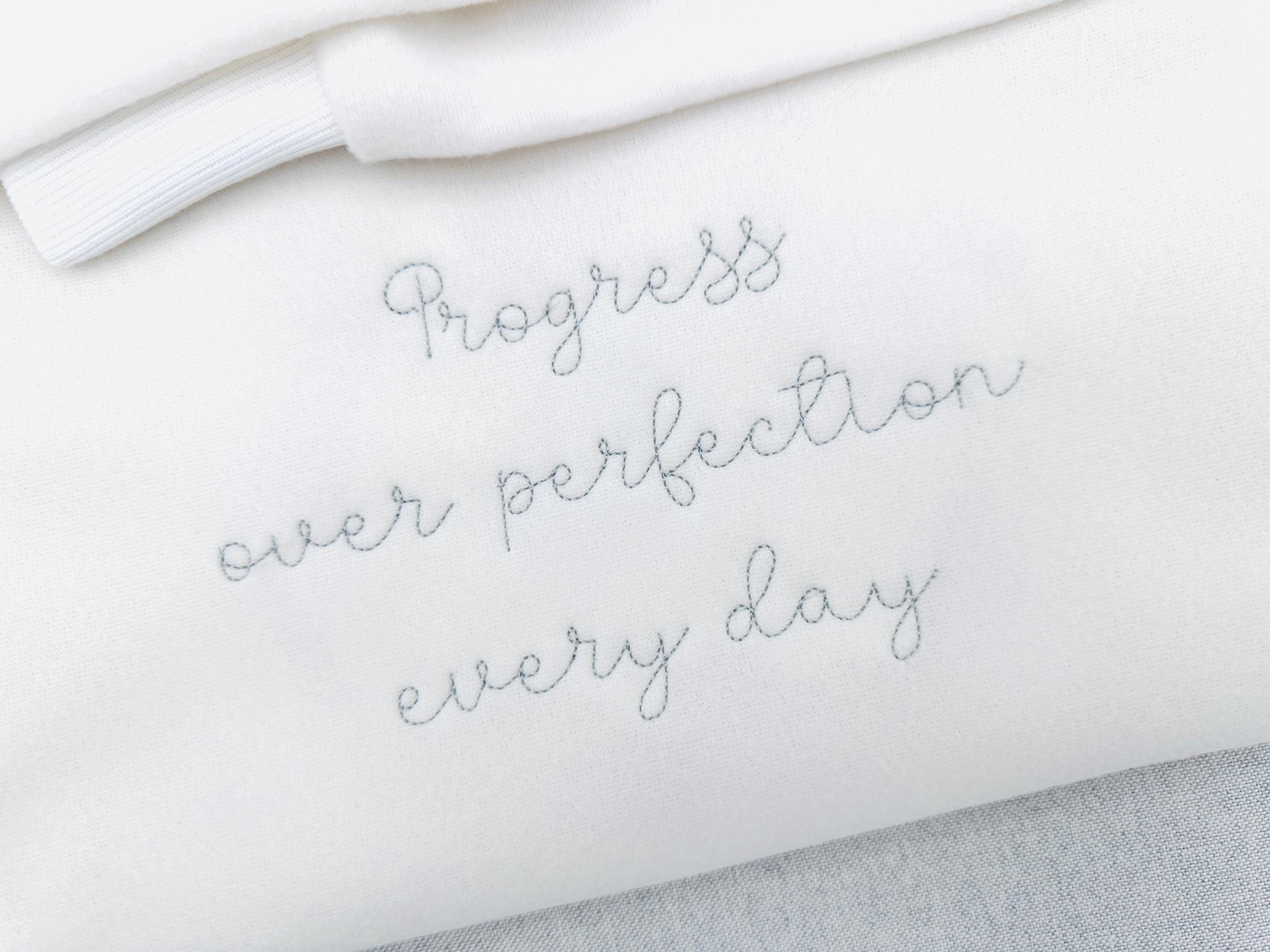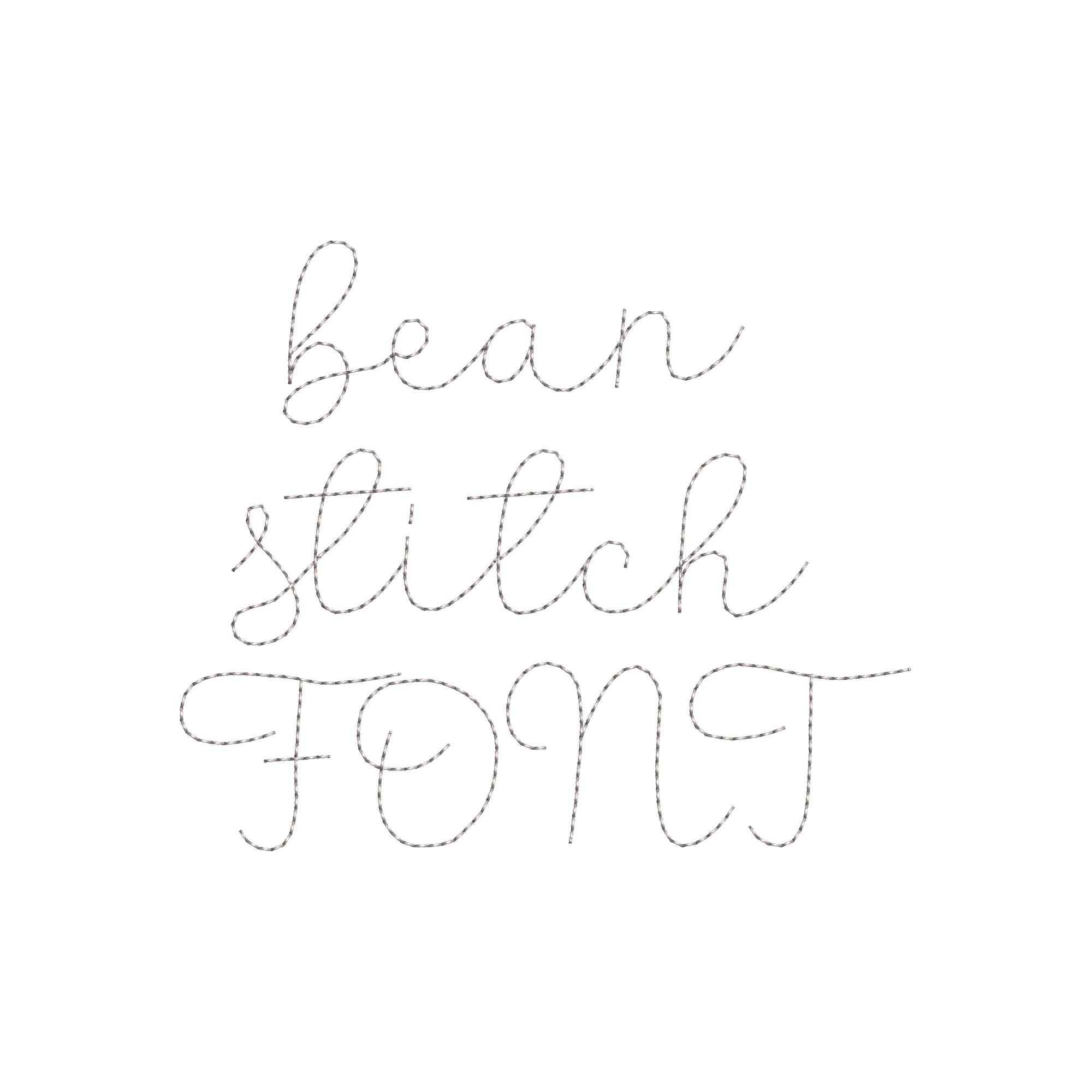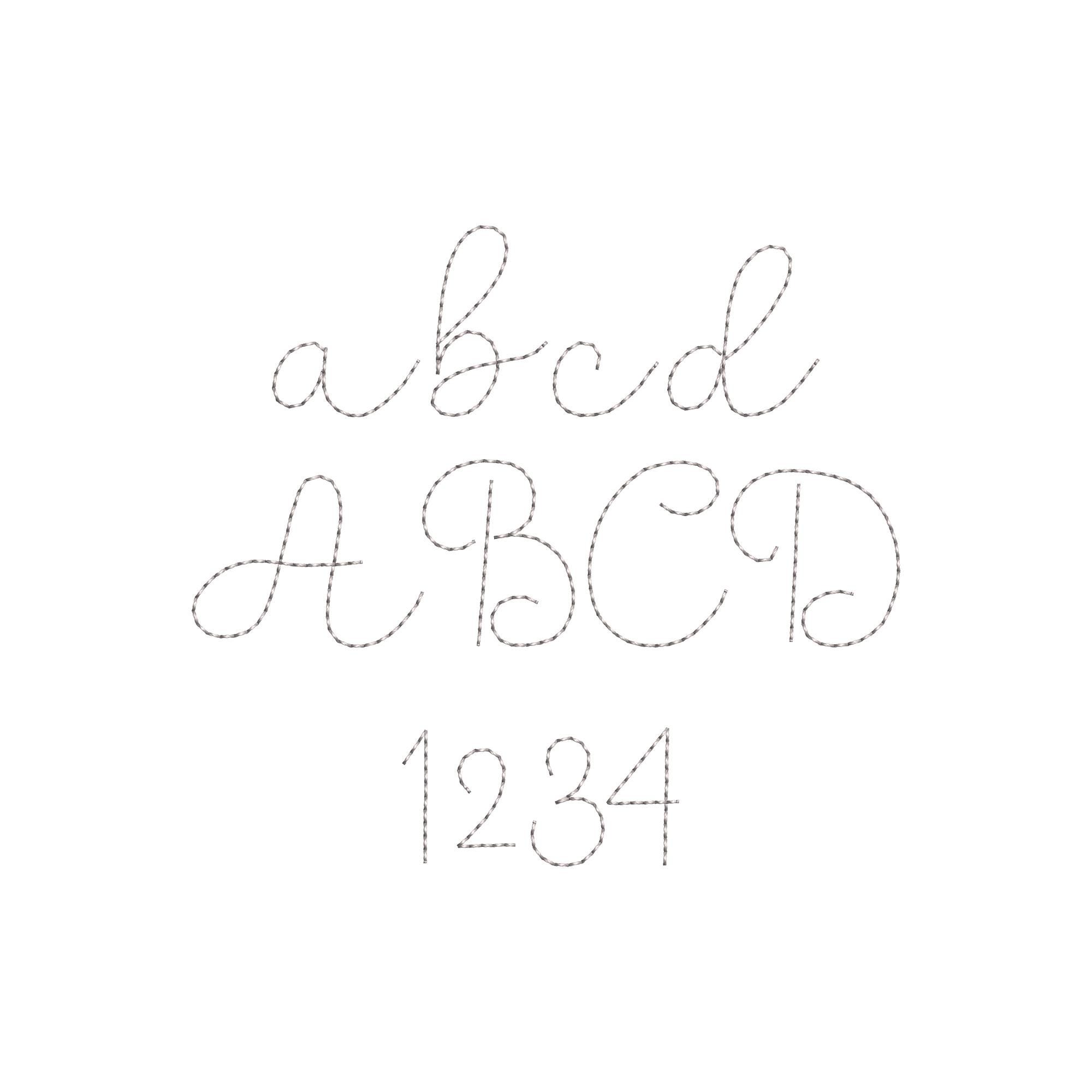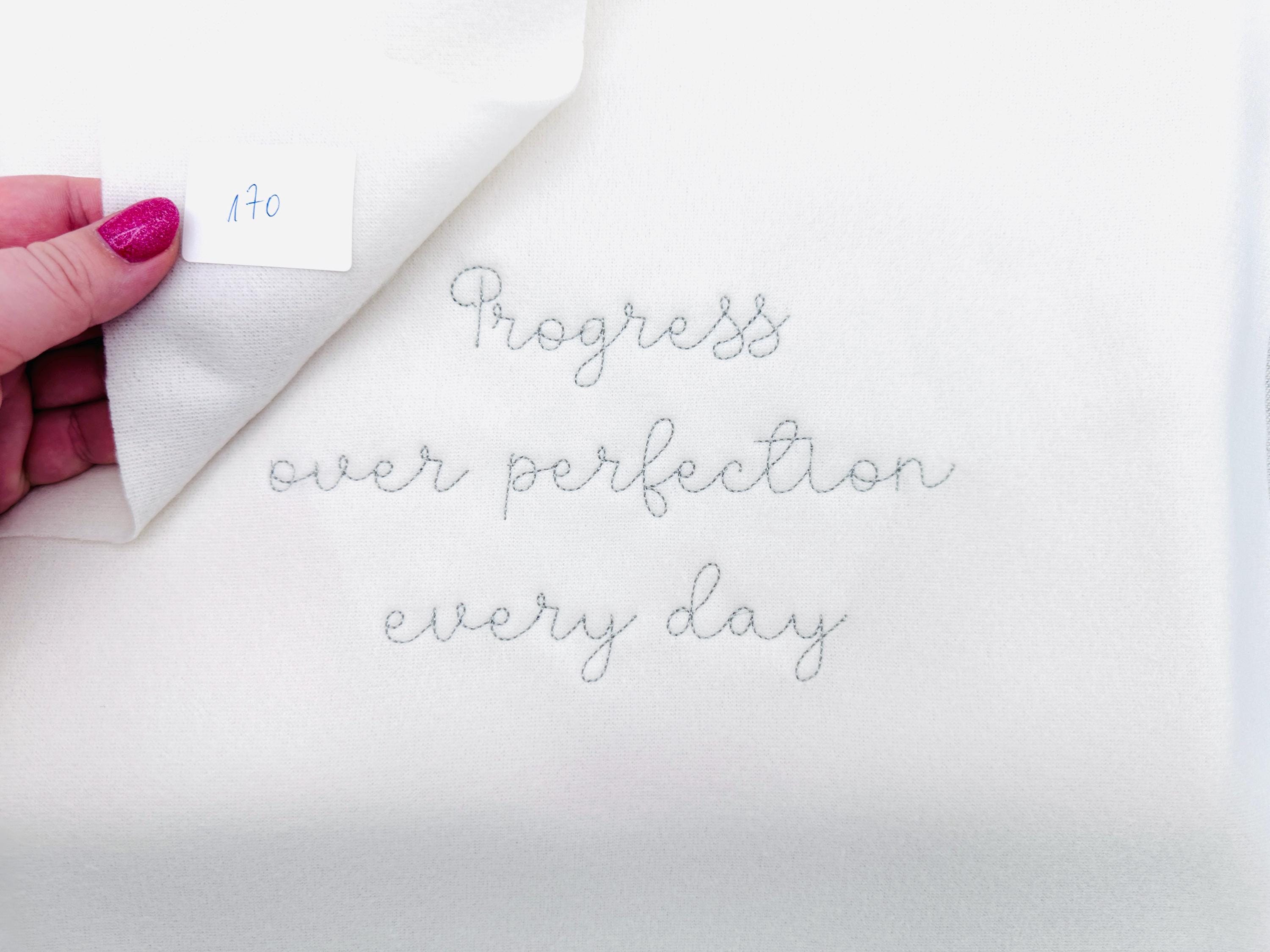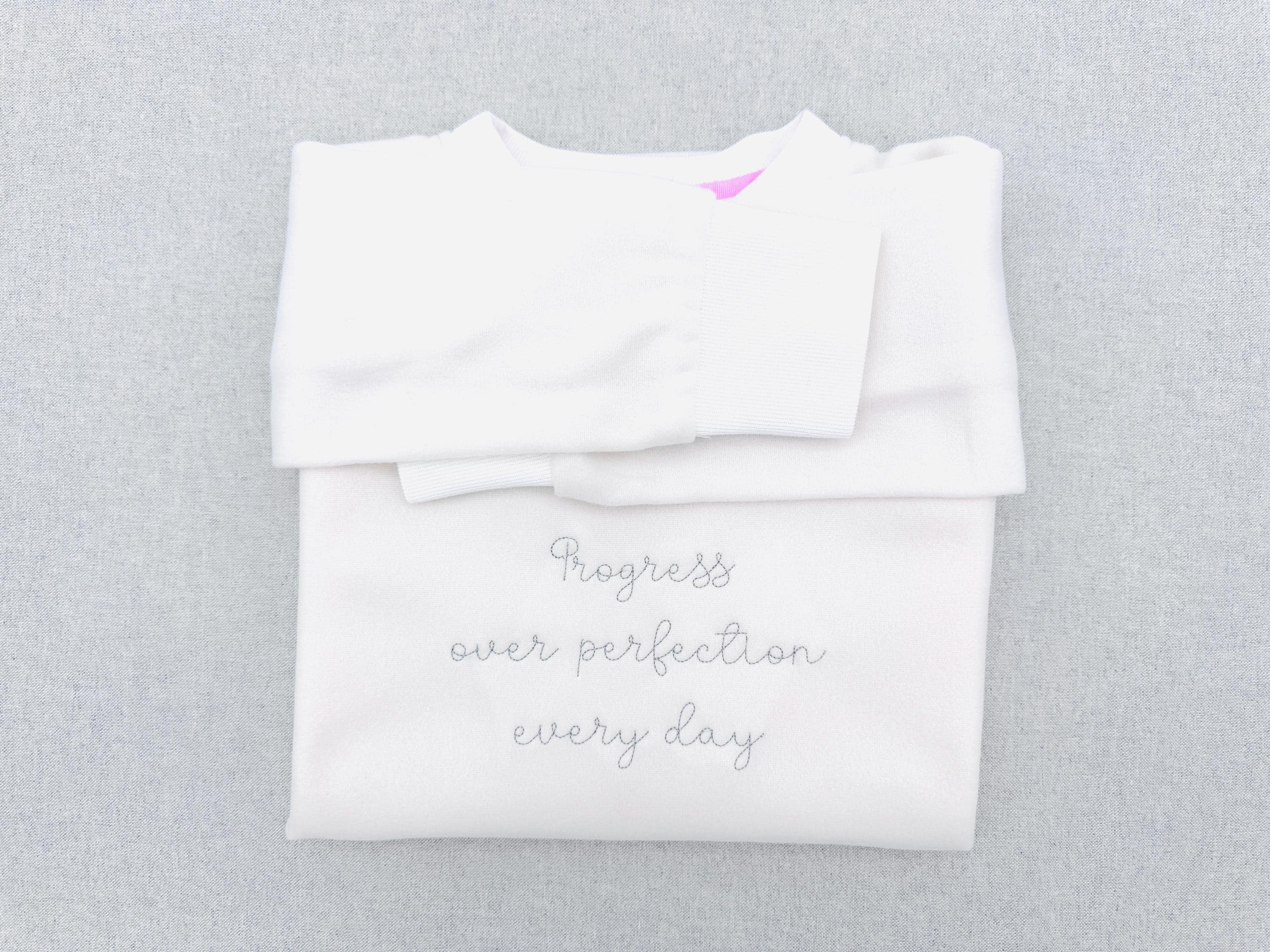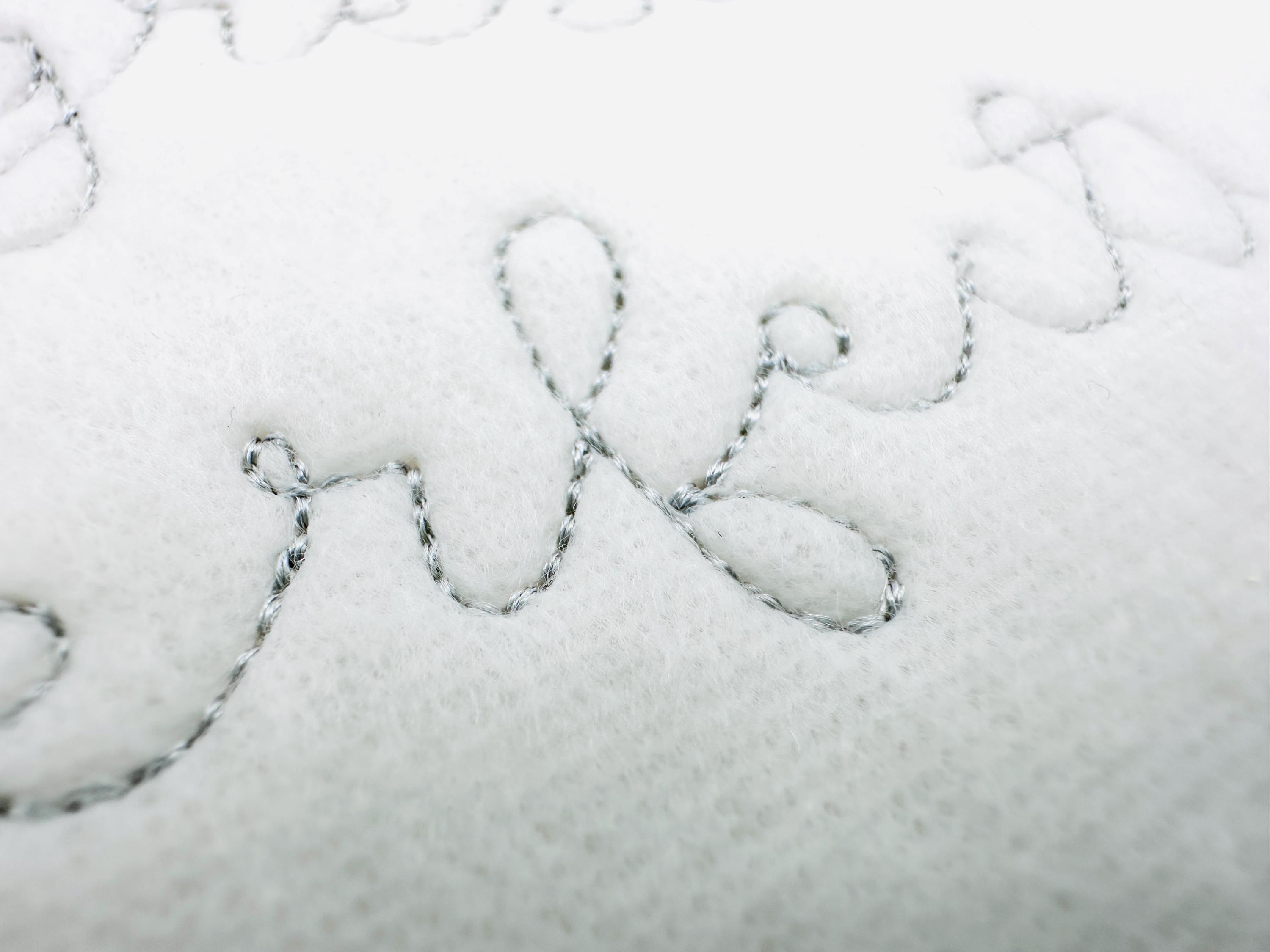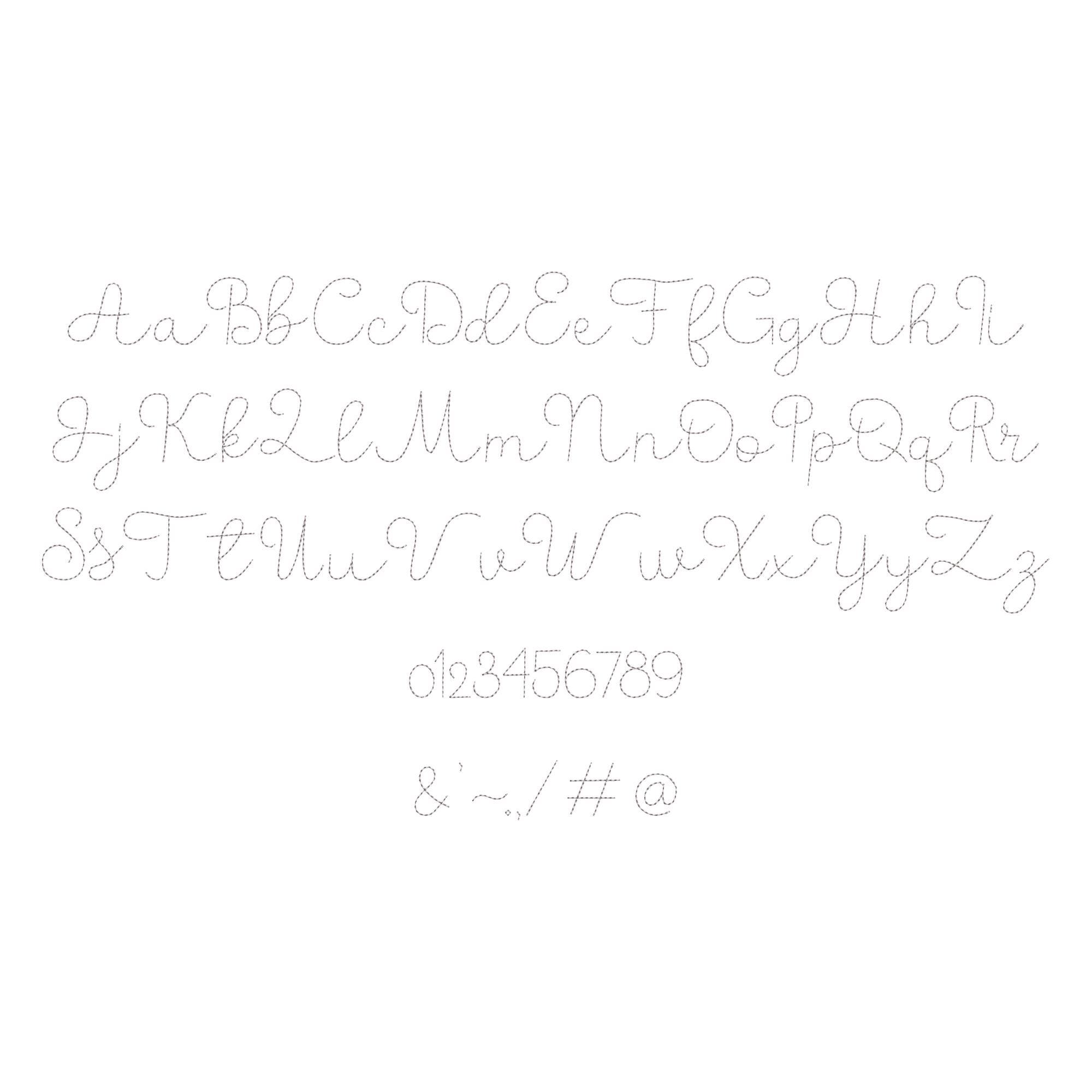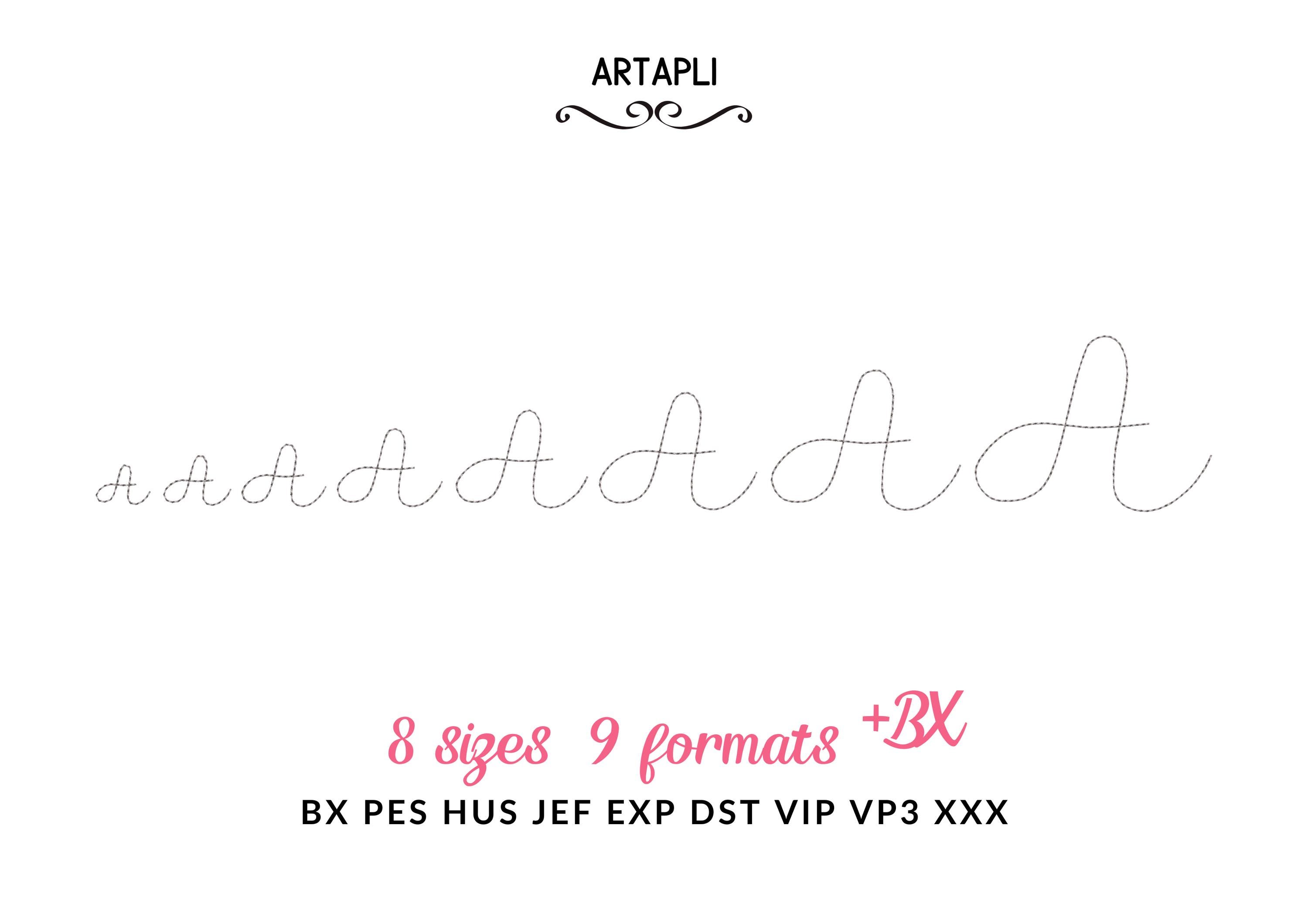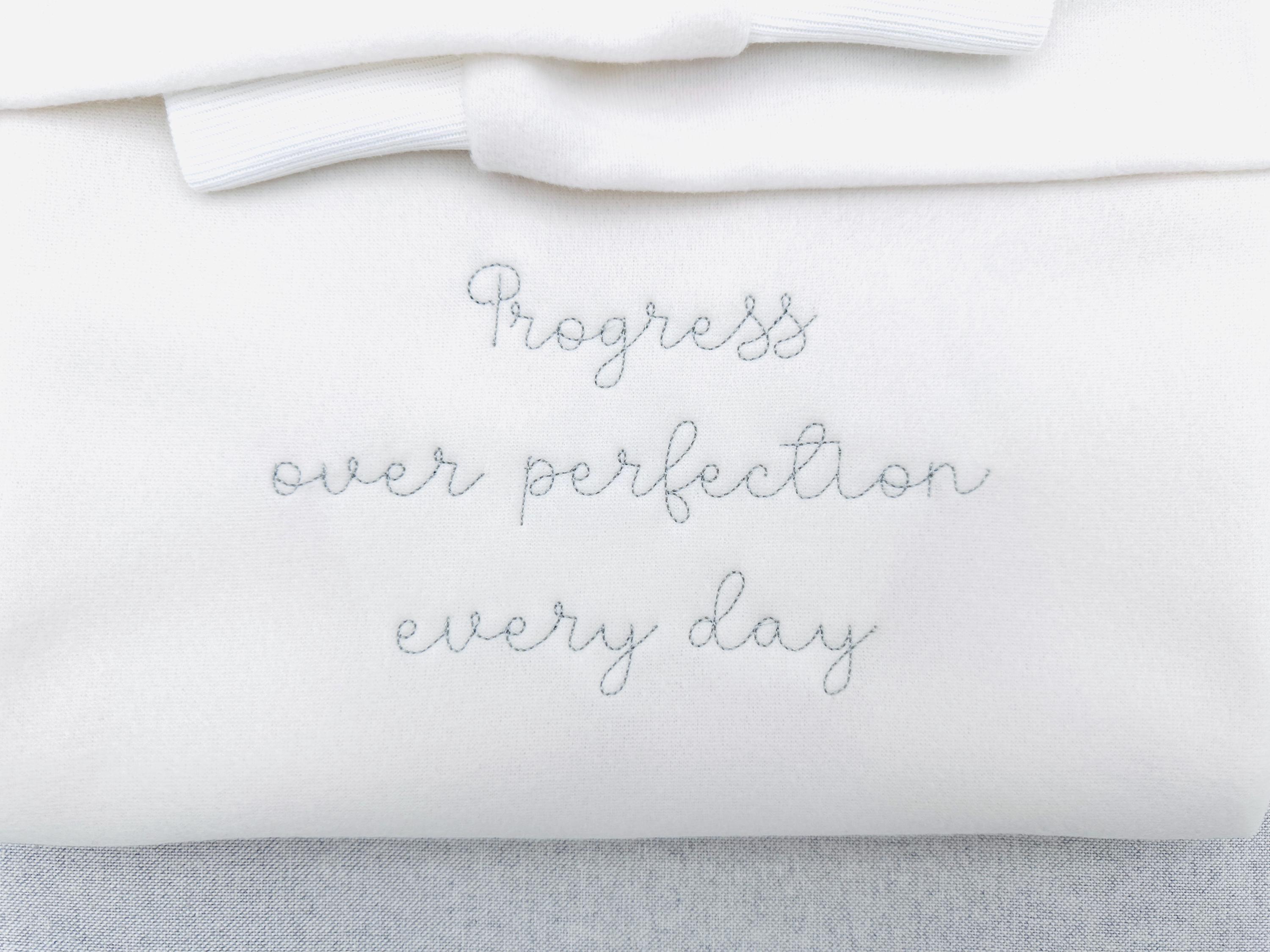
Handwritten script FONT Butter Bean Stitch Alphabet Monogram machine embroidery designs letters numbers punctuation many sizes 0.5 to 2.2 inch
Note: The font may look thin at larger sizes such as 1.7" and 2.2".